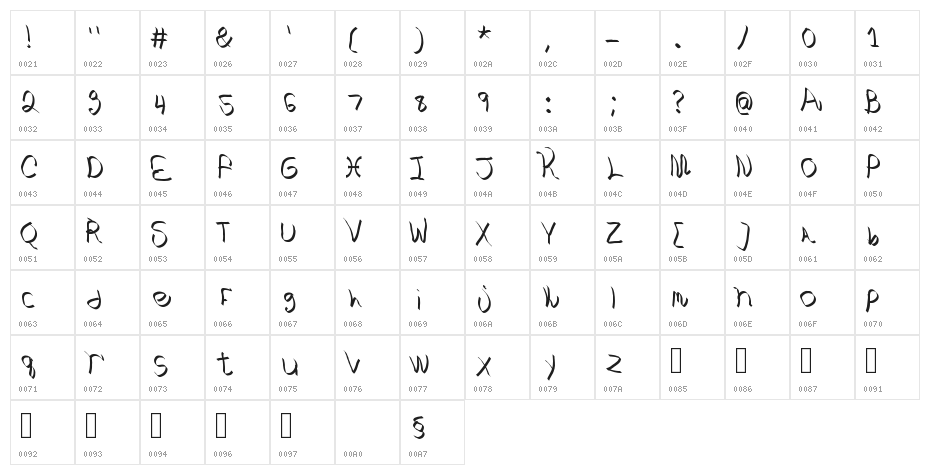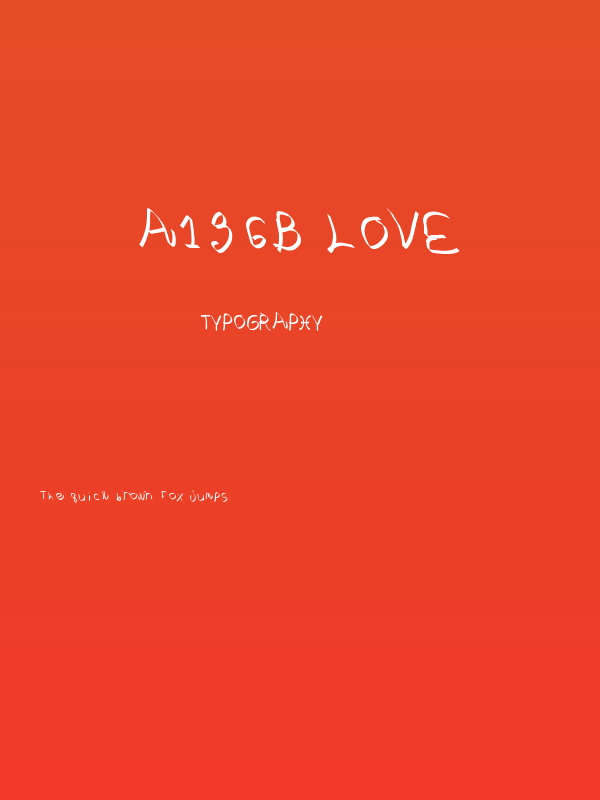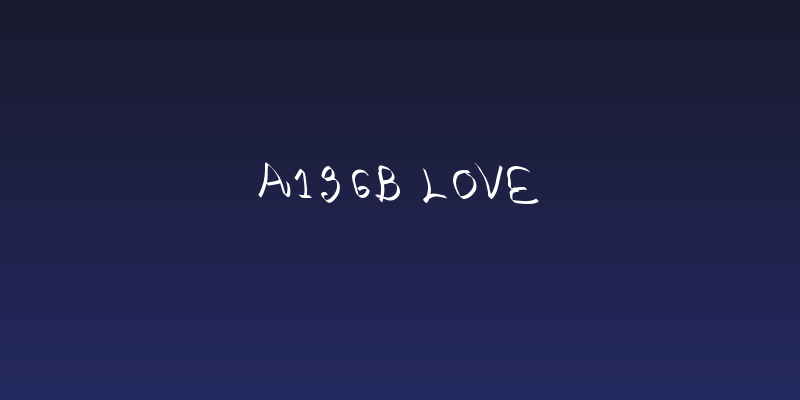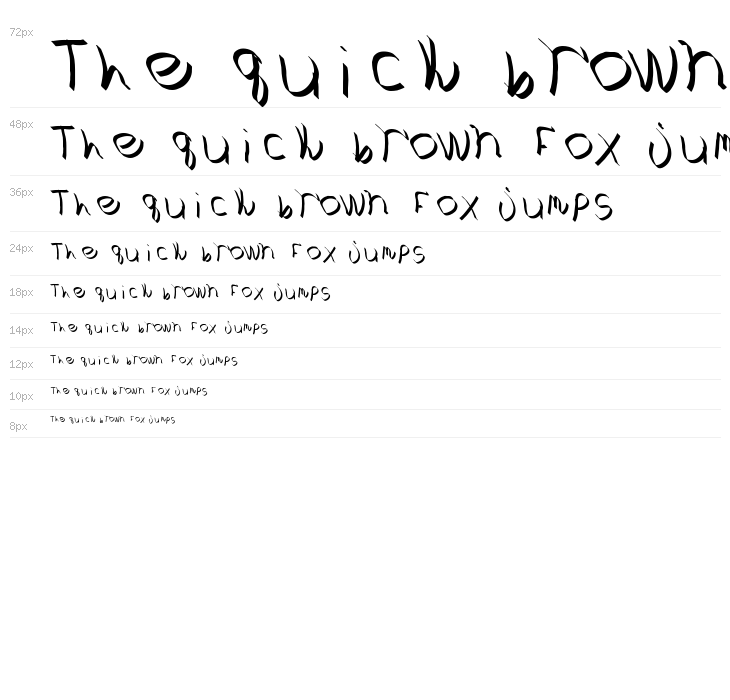
A136B Love Font
A136B Love Description
This font features a unique, handwritten style with an artistic flair. The characters are irregular and dynamic, giving a sense of movement and creativity. The uppercase letters have a bold presence, while the lowercase letters maintain a playful and casual look. Numbers and special characters follow the same whimsical style, making the font suitable for creative and informal projects. The strokes vary in thickness, adding to the hand-drawn feel, and the overall appearance is both expressive and distinctive.
| Proposed Projects | Ideal for greeting cards, invitations, personal branding, and artistic projects. |